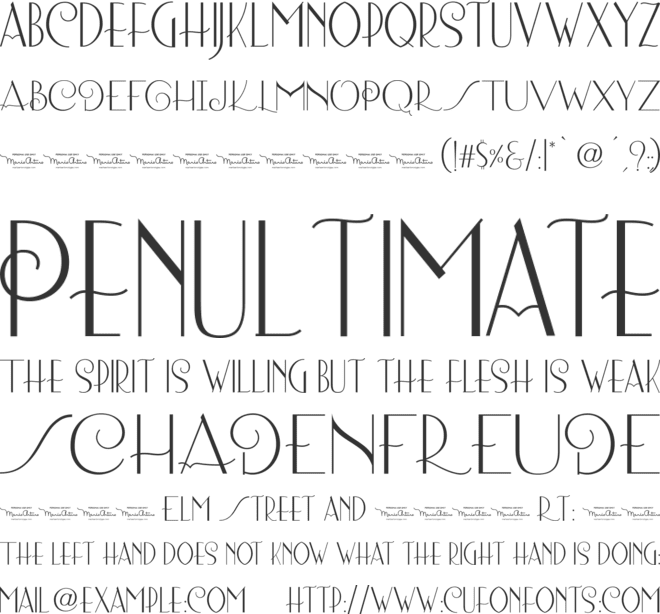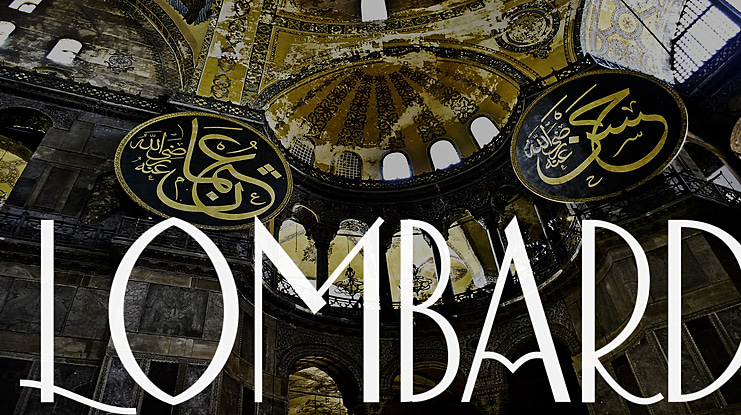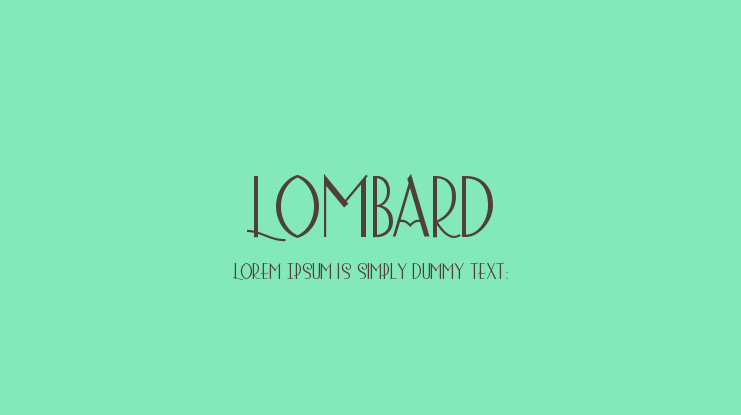
Lombard Font Family
Mario Arturo
This typeface was traced from an unnamed «orient» alphabet from the 1943 edition of «New Letters and Lettering» by Paul Carlyle and Guy Oring